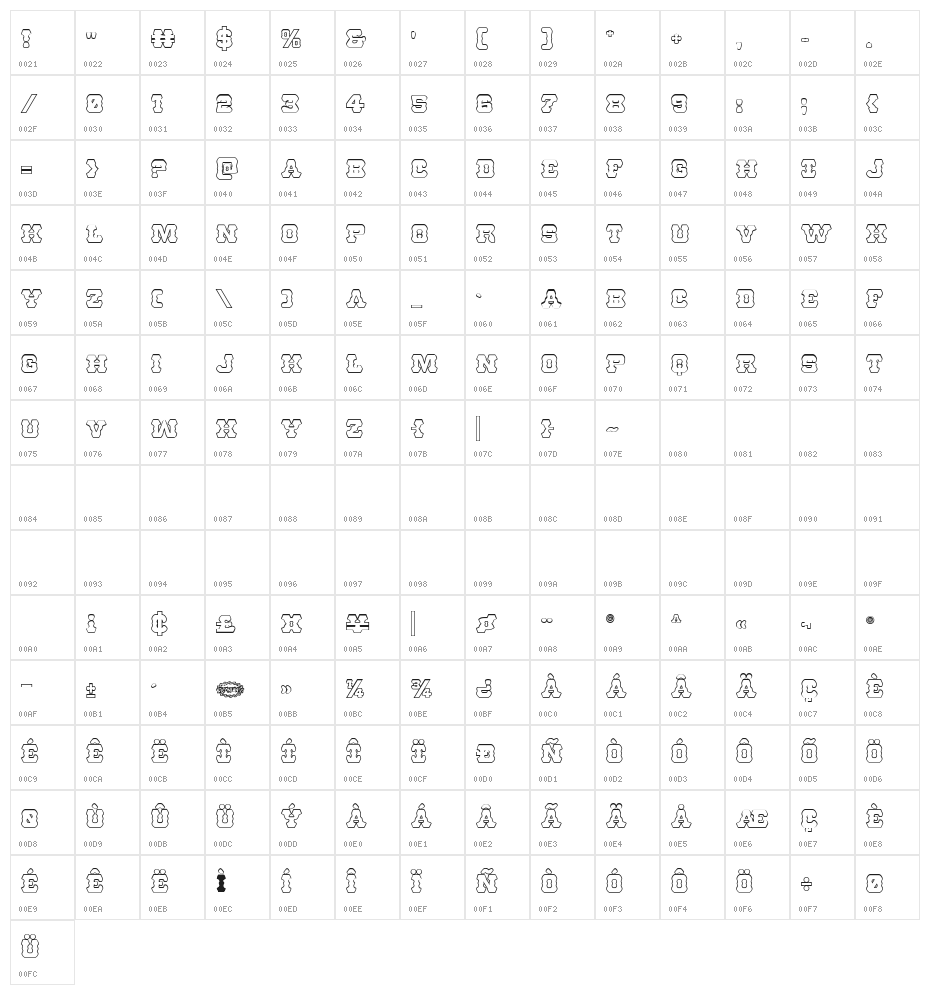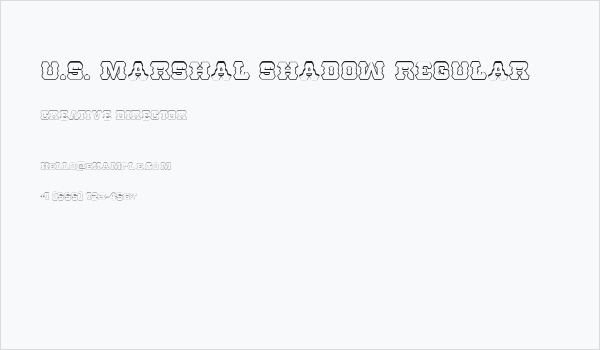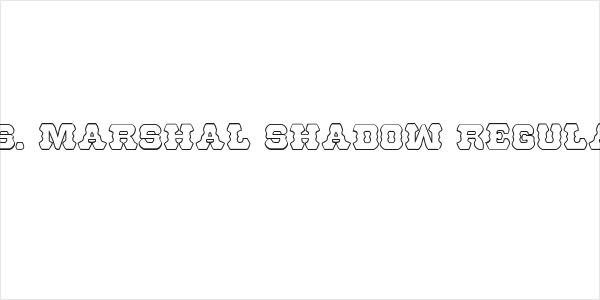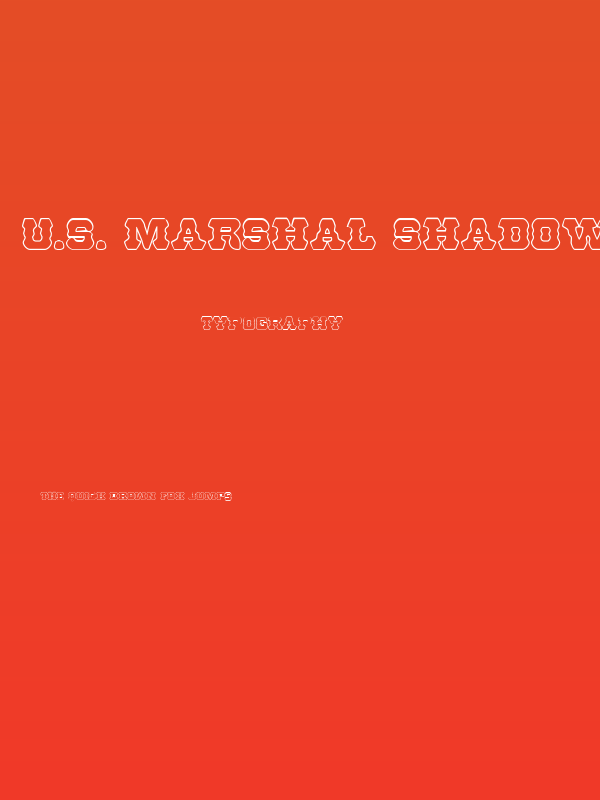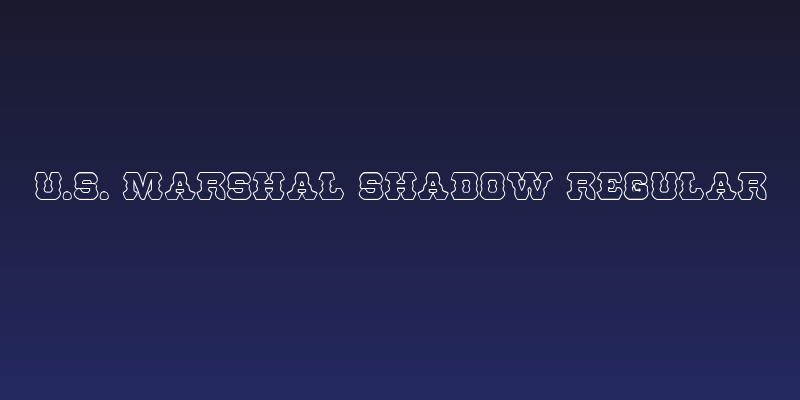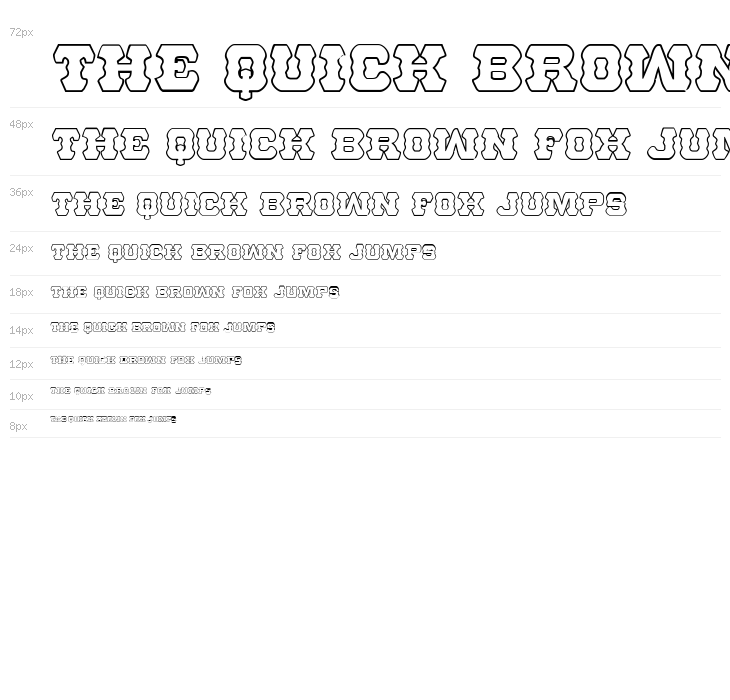
U.S. Marshal Shadow Regular Font
U.S. Marshal Shadow Regular Description
This font features a bold, shadowed design with a distinctly Western or vintage feel. The characters are outlined with a thick black line, creating a shadow effect that gives depth and dimension. The letters are uppercase with a blocky, geometric structure, reminiscent of old Western signage or vintage posters. The numbers and special characters maintain this consistent style, making the font suitable for themed designs. Its unique appearance makes it stand out, ideal for projects that require a strong visual impact.
| Proposed Projects | Ideal for Western-themed posters, vintage signage, branding, and logos that require a bold statement. |